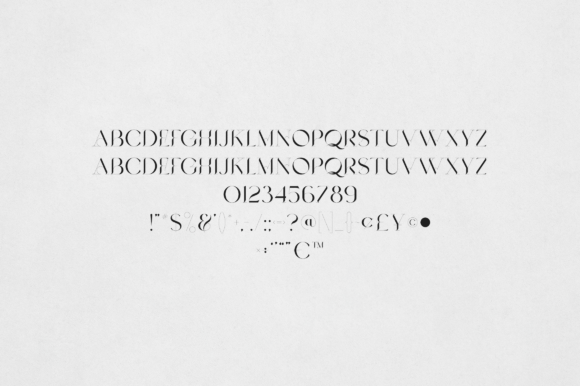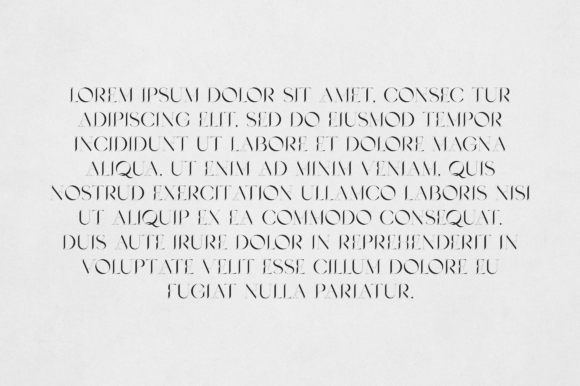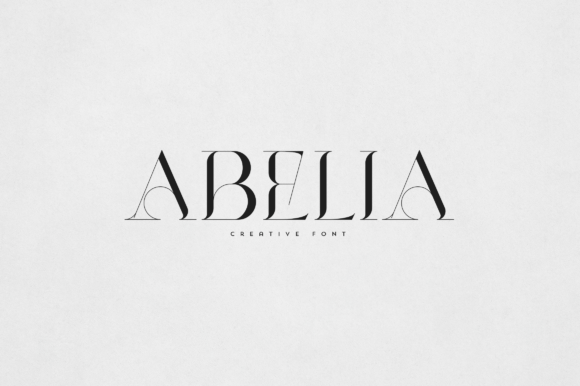
Introducing Abelia Font: Elevate Your Typography with Elegance and Versatility
In the world of typography, a font can make all the difference in creating a lasting impression. If you’re a designer, craftsperson, or simply someone who appreciates beautiful text, you’re in luck. Abelia Font is here to transform your typography into something truly unique and captivating. With its elegant and versatile design, Abelia is perfect for a wide range of applications, from logos and branding to headlines, packaging, and more.
The Abelia Font Advantage
Abelia Font stands out from the crowd with its distinctive yet adaptable style. Its elegant curves and lines make it an ideal choice for projects that demand sophistication and refinement. Whether you’re working on a luxury brand, a home-ware design, or a product packaging project, Abelia brings a touch of class and distinction. Its versatility means it can seamlessly integrate into various design contexts, ensuring your work looks polished and professional.
One of the key benefits of Abelia Font is its wide range of applications. Here are just a few ideas to get you started:
- Branding Projects: Create a memorable logo or wordmark that sets your brand apart.
- Home-Ware Designs: Add a stylish touch to your home decor products, such as throw pillows, wall art, and kitchenware.
- Product Packaging: Elevate your product’s presentation with sophisticated typography that reflects your brand’s personality.
- Magazine Headers: Grab your readers’ attention with eye-catching headlines that exude elegance.
- Text Overlays: Use Abelia as a stylish text overlay on background images for a visually appealing effect.
Why Choose Abelia Font?
With so many fonts available, why choose Abelia? Here are a few compelling reasons:
- Unique Style: Abelia offers a distinctive style that will set your work apart from the competition.
- Ease of Use: Designed with usability in mind, Abelia is easy to read and works well across various mediums.
- Customization: With its versatile design, Abelia can be customized to fit your project’s specific needs.
- Timeless Appeal: Unlike trendy fonts that quickly go out of style, Abelia’s classic elegance ensures it will remain relevant for years to come.
Tips for Using Abelia Font Effectively
To get the most out of Abelia Font, consider the following tips:
- Pair with Complementary Fonts: Combine Abelia with simpler fonts for contrast and visual interest.
- Experiment with Sizes: Play with different font sizes to create hierarchy and emphasis in your design.
- Color Matters: Choose colors that complement Abelia’s elegant style, such as rich blacks, deep blues, or luxurious golds.
- Don’t Overdo It: While Abelia is beautiful, use it judiciously to avoid overwhelming your design.
Abelia Font is more than just a typeface; it’s a design statement. With its elegant and versatile design, Abelia has the power to transform your typography into something truly memorable. Whether you’re a professional designer or a craftsperson, Abelia offers the perfect blend of style, versatility, and timeless appeal. So why settle for ordinary typography when you can enchant your audience with the extraordinary elegance of Abelia Font?